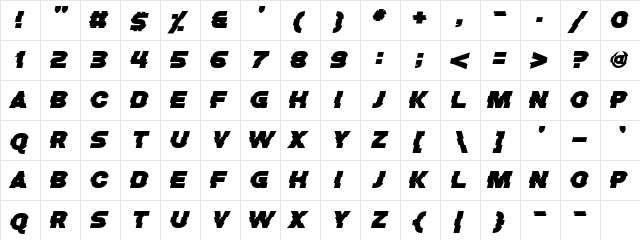
Bugfast Regular
| Designer | NAL |
Design Context for Bugfast Typeface
Bugfast is a composed and adaptable typeface that performs quietly and consistently across a wide range of design contexts.